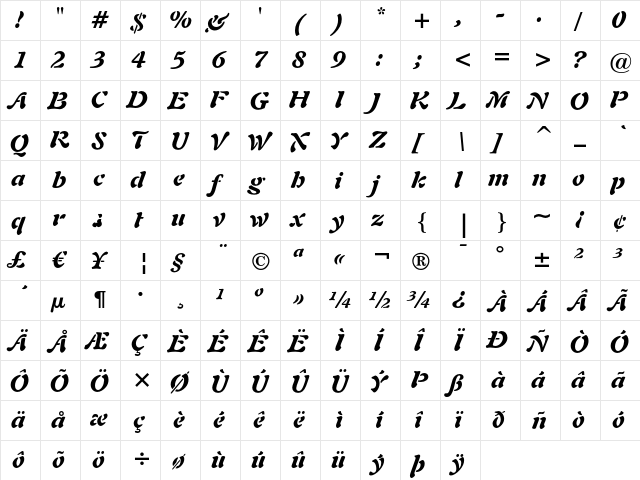
Freeform 721 Black Italic Font Preview
Freeform 721 Black Italic
Design Context for Freeform 721 Typeface
Freeform 721 is a composed and adaptable typeface that performs quietly and consistently across a wide range of design contexts. Its italic angle brings a sense of urgency and motion to the letterforms.
Pro Tip: Use Freeform 721 for emphasis, pull quotes, and subheadings where its slanted energy can add rhythm to the layout.